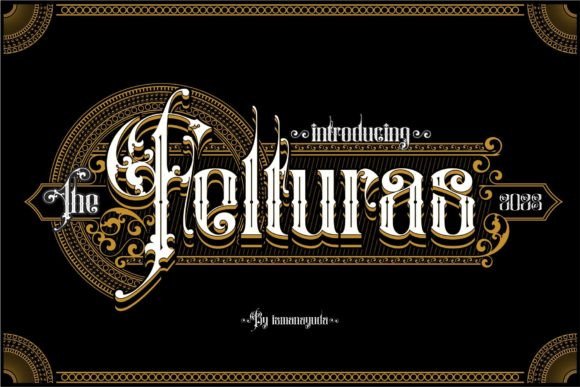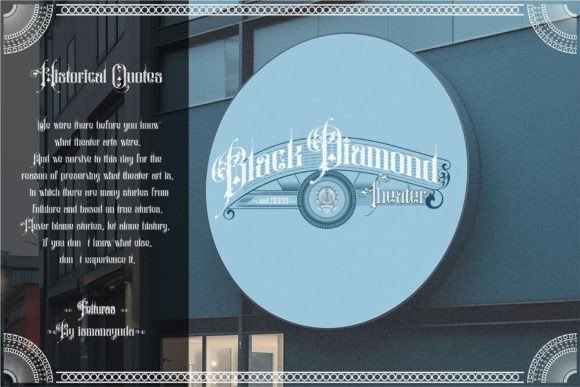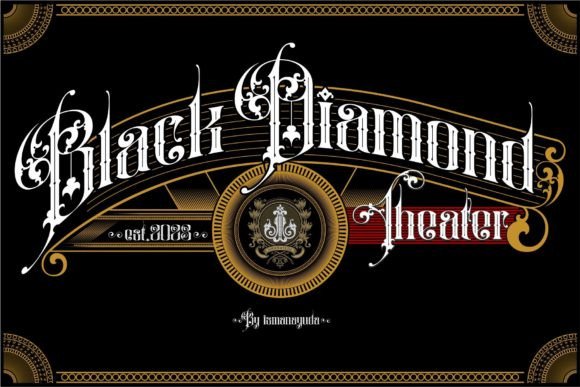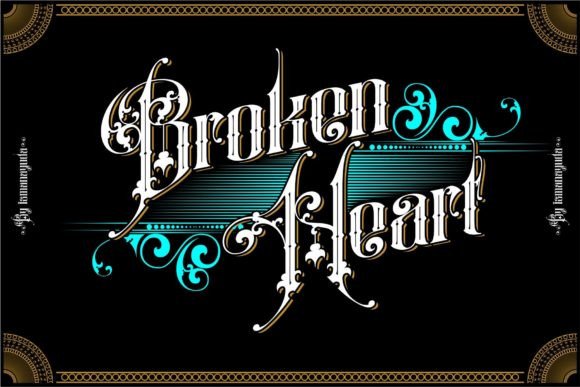
Felturas Font: Unique Victorian Typography for Logo Design & Posters
About the Felturas Font
Experience the unique personality of Felturas Font, a font designed for impact. Felturas is a unique font that has a Victorian style.
This font is suitable to meet your needs which include studio tattoos and mock-ups for clothes as well as mock-ups for castle-style shops.
Felturas’ Victorian flair makes it ideal for headlines, short text blocks on branding materials, and packaging design for products with a vintage or luxury feel. It works exceptionally well in projects evoking a sense of history, craftsmanship, or ornate detail. However, its intricate design is less suitable for body text or UI elements where readability is paramount; the detail can become visually overwhelming in longer passages.
The font’s personality is bold and elegant, lending itself to projects requiring a sophisticated and slightly dramatic aesthetic. Avoid using it for anything requiring a clean, modern, or minimalist feel.
For effective pairings, consider contrasting Felturas with a clean sans-serif like Montserrat for body copy, or a more geometric sans-serif like Futura for a modern counterpoint. A delicate script font could also be used sparingly to add a touch of extra flair for smaller text elements.
Felturas Font Usage Examples
Felturas Font Example